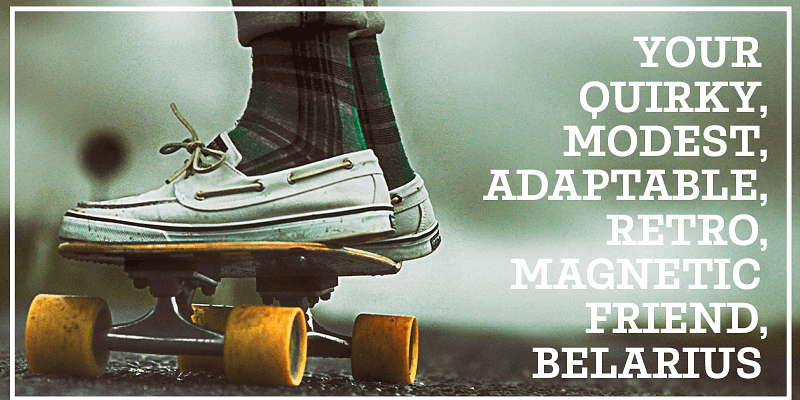
Belarius Font Free Download is a modern serif typeface that features clean lines, sophisticated curves, and a timeless appeal. Its elegant design makes it ideal for a wide range of design projects, including editorial layouts, branding, invitations, packaging, and any creative work that requires a polished, professional look.
Belarius Font is versatile and performs well in both display text and smaller body copy. It integrates seamlessly with popular design software such as Adobe Illustrator, Photoshop, Figma, and Canva, making it a great option for both print and digital designs.